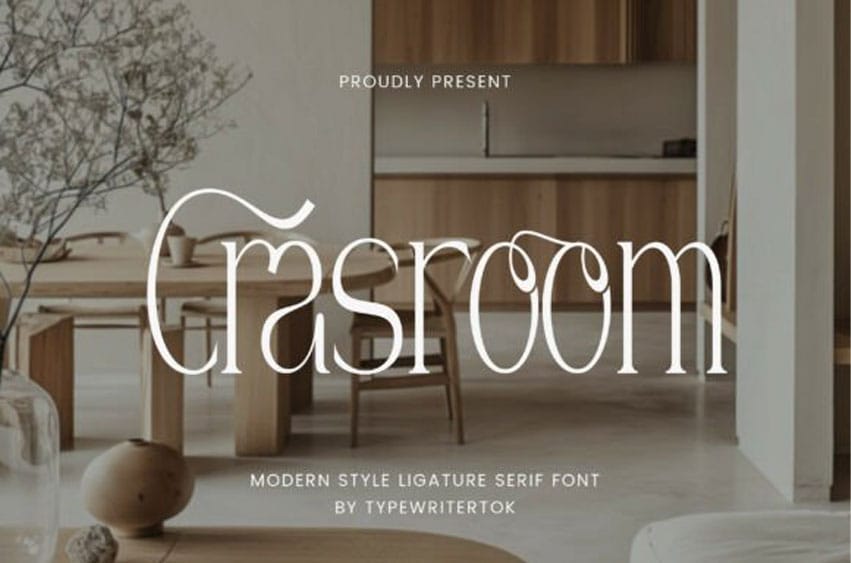
Crasroom Font is a modern elegant serif font that blends sophistication with contemporary charm. Its refined details and graceful curves make it perfect for branding, editorial designs, luxury packaging, wedding invitations, fashion magazines, and professional presentations.